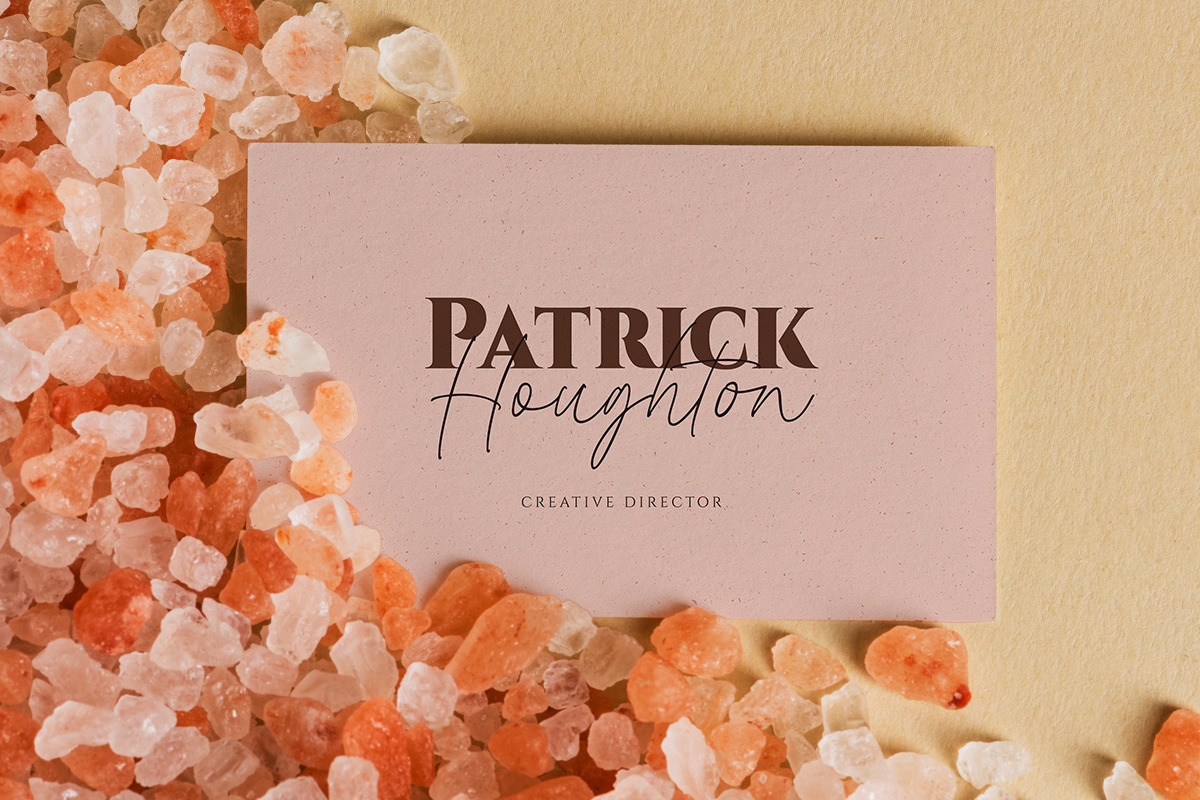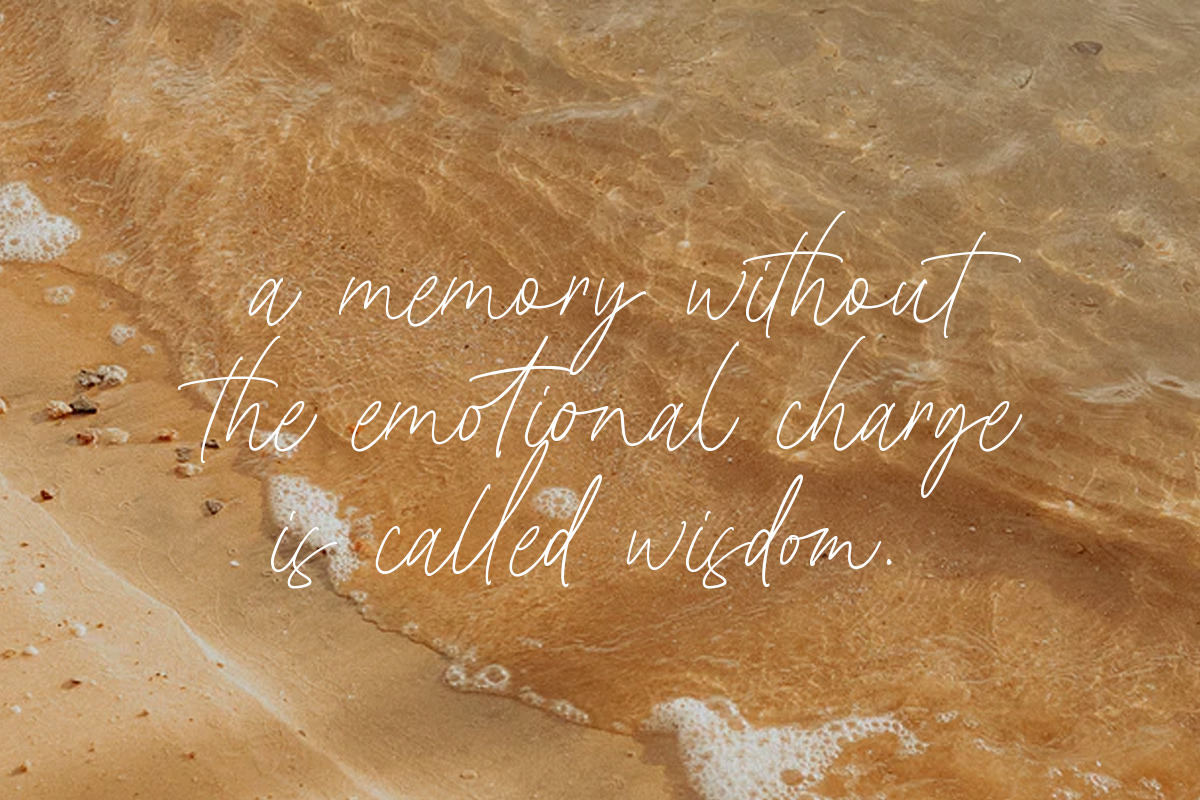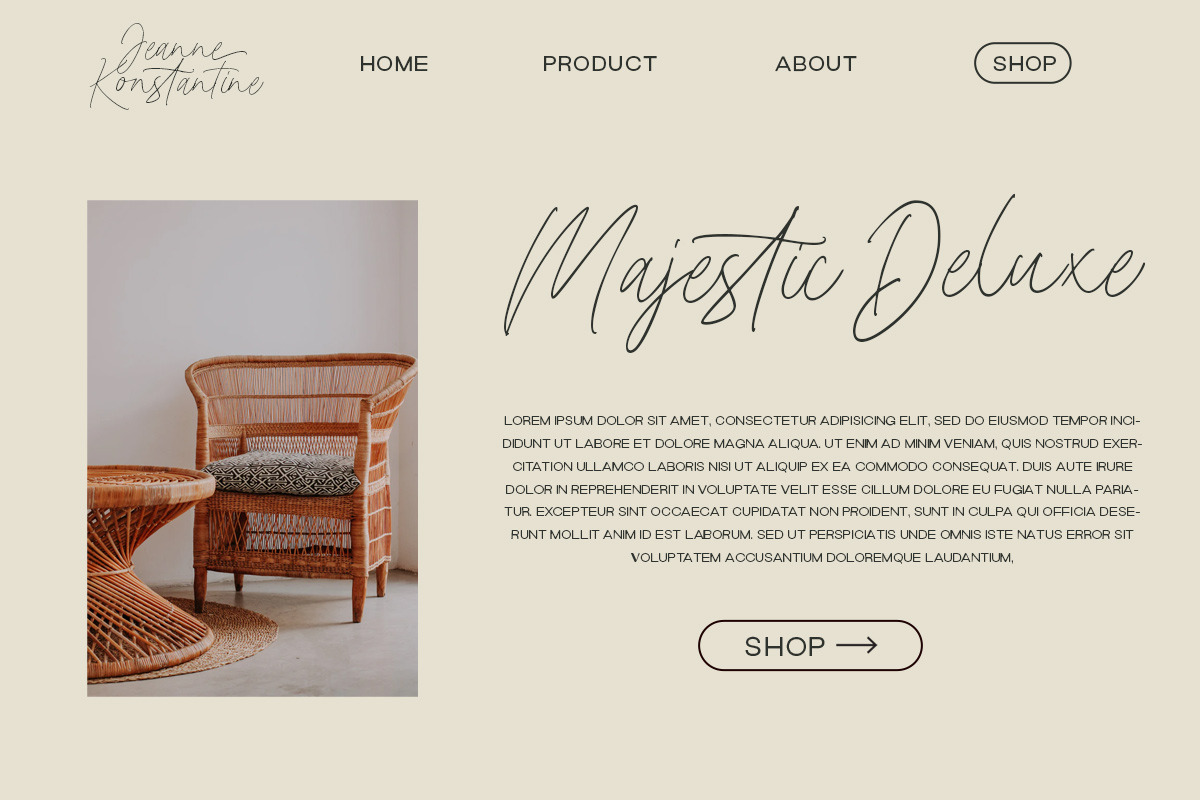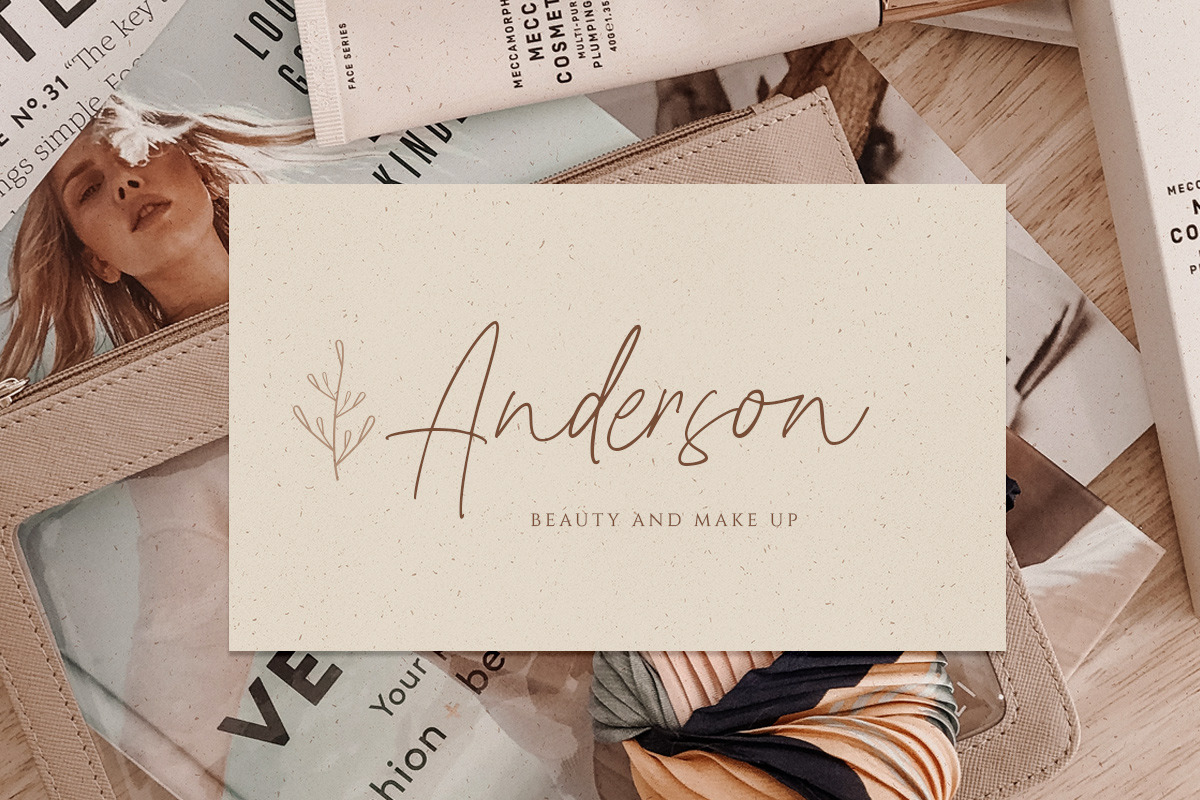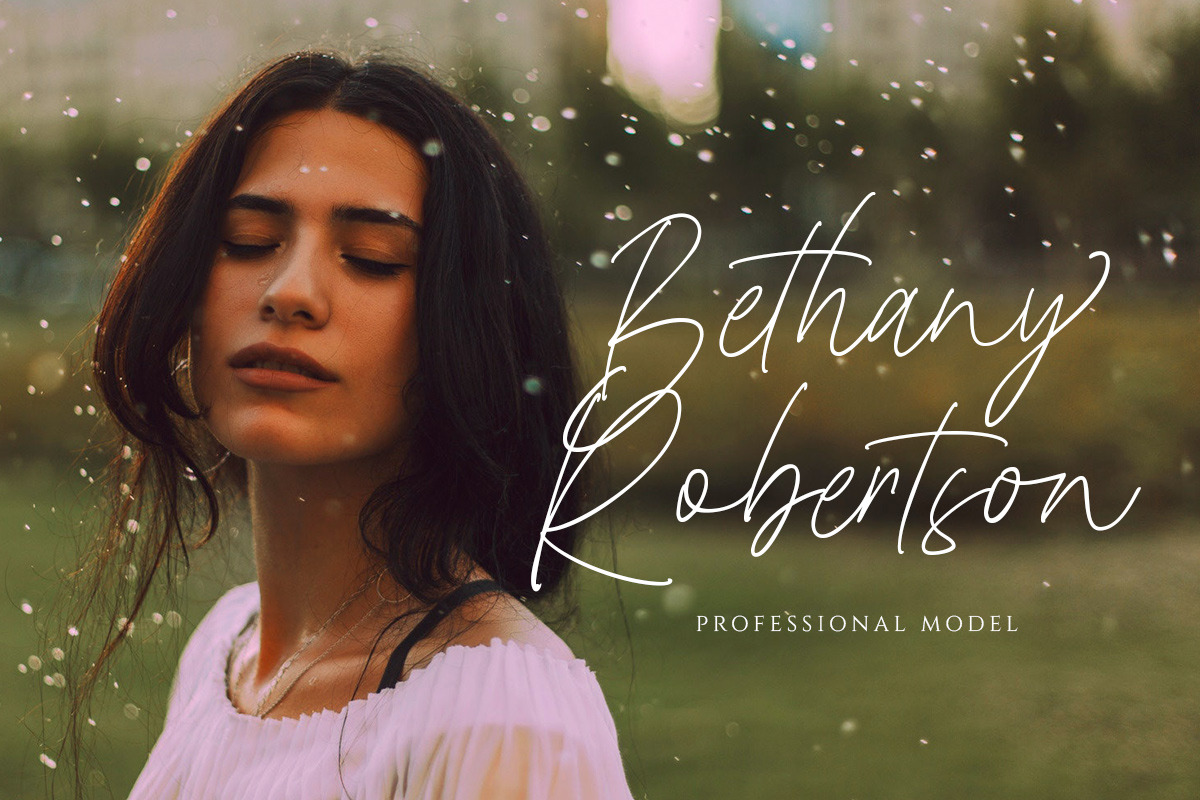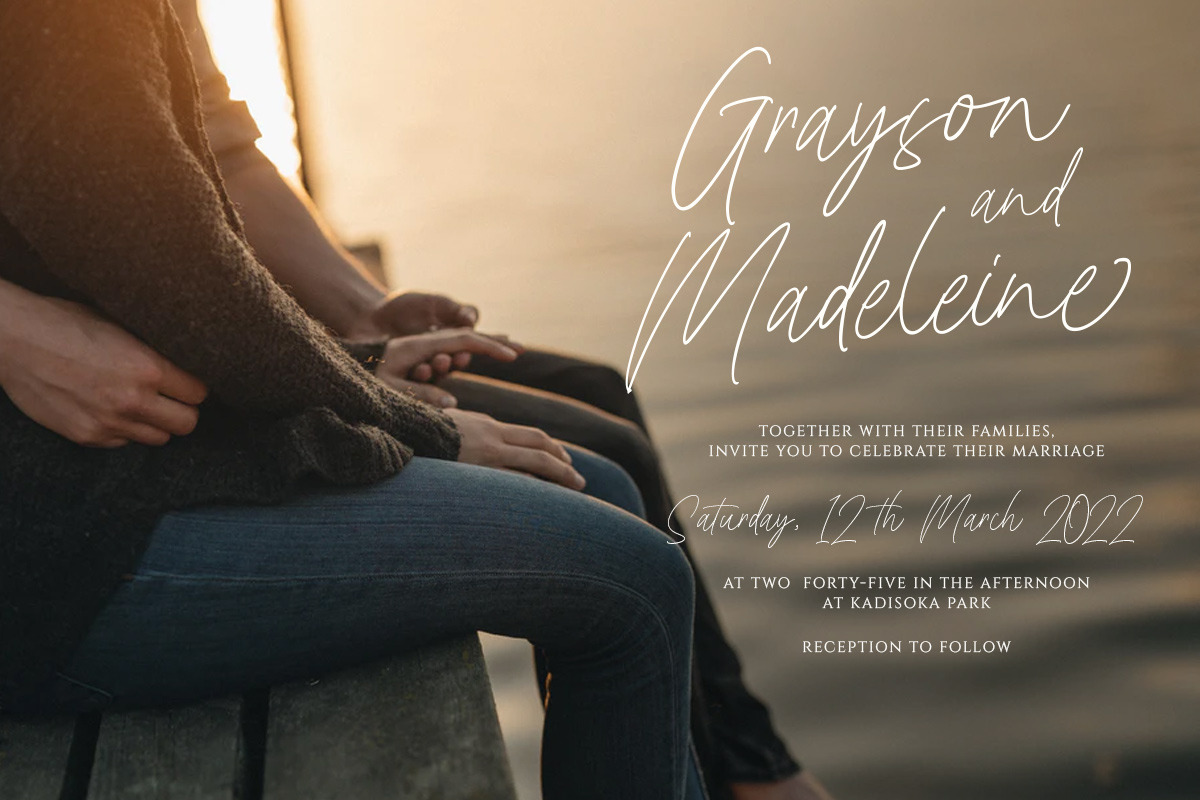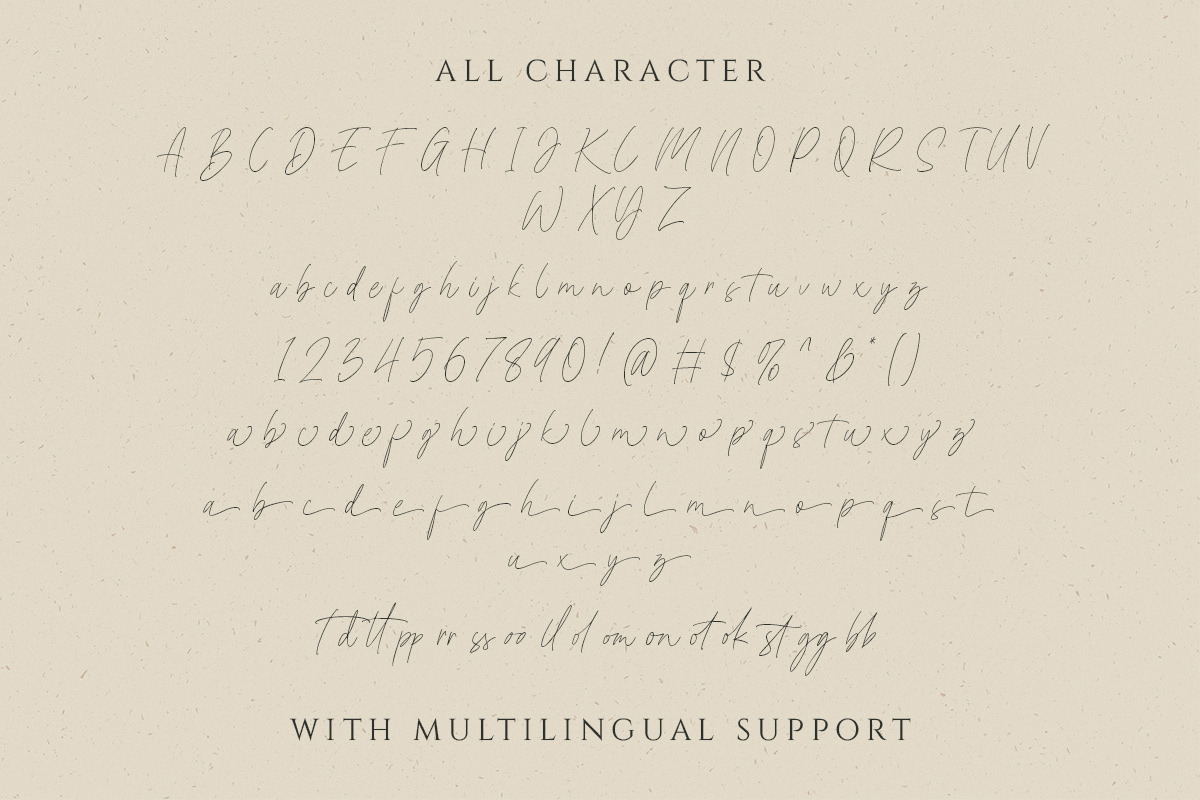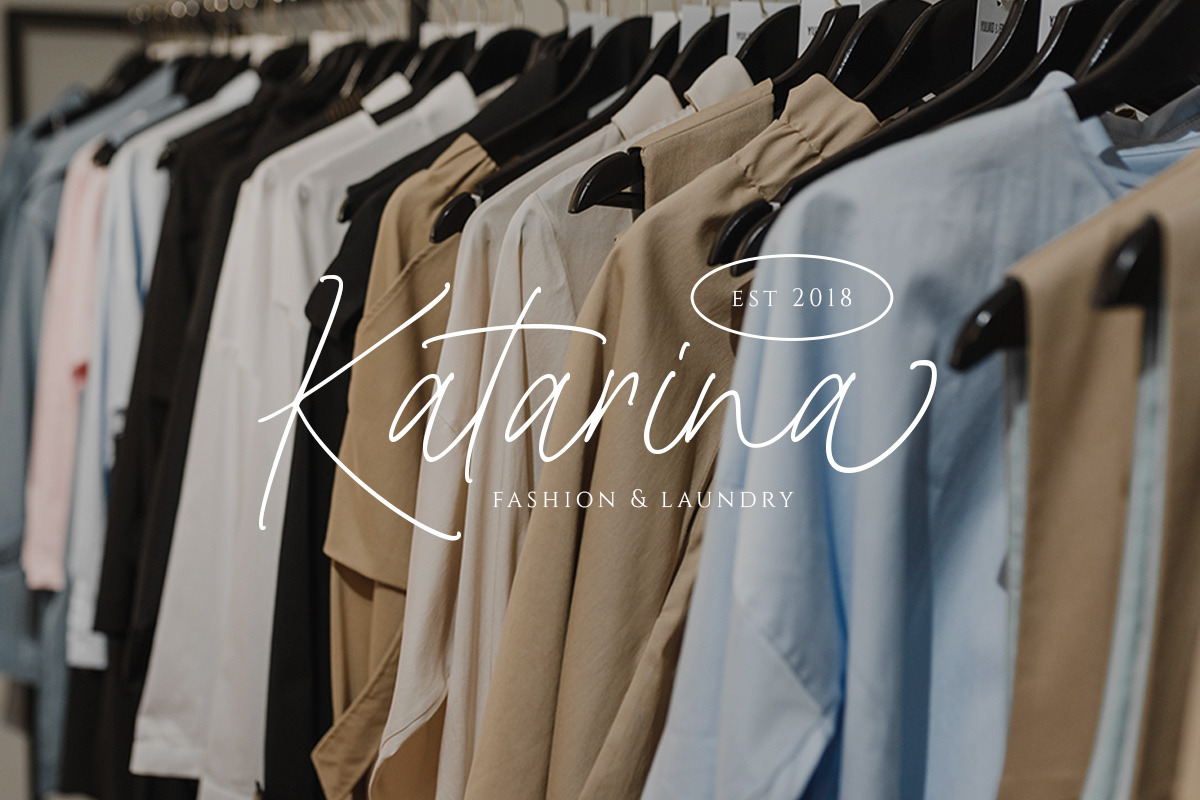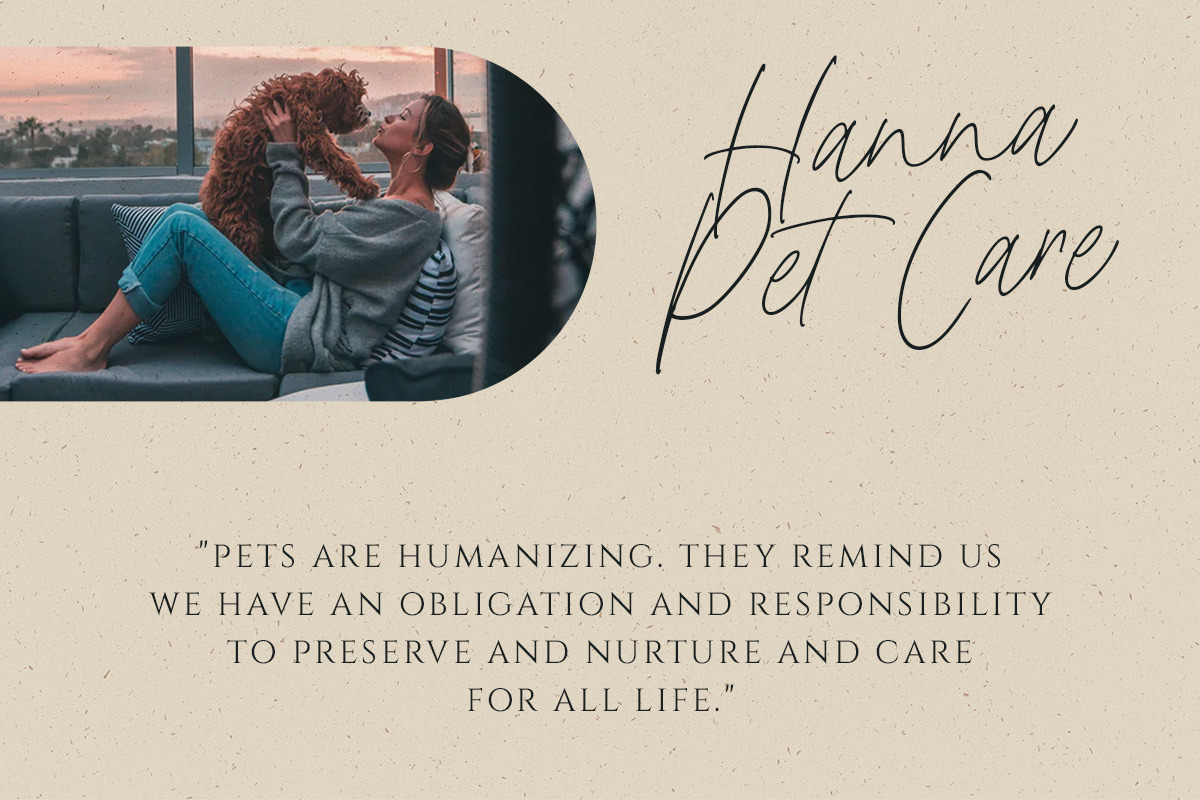
Wednesday Island - Chic Handwritten
Looking fresh and chic font? Introducing, Wednesday Island - an authentic handwritten script. This font is made for perfect handwriting. This type of font perfectly made to be applied especially in logo, and the other various formal forms such as invitations, labels, logos, magazines, books, greeting / wedding cards, packaging, fashion, make up, stationery, novels, labels or any type of advertising purpose.
uppercase & lowercase numbers and punctuation multilingual alternates and ligatures PUA encoded